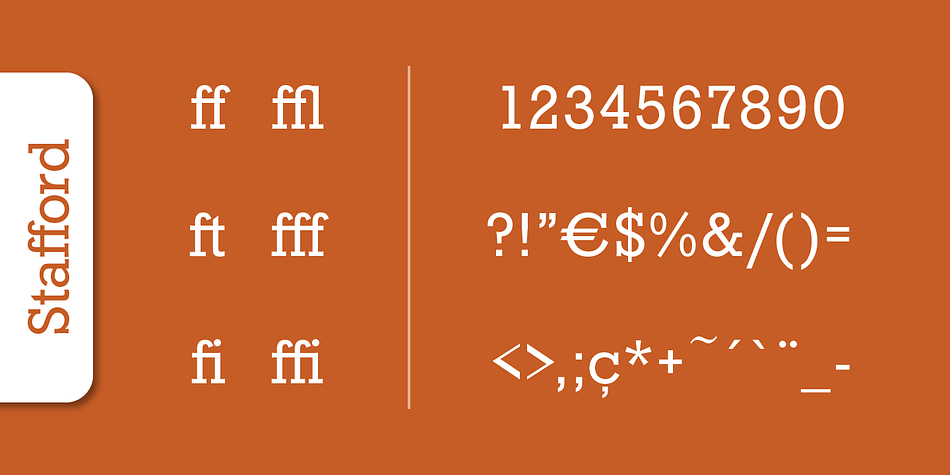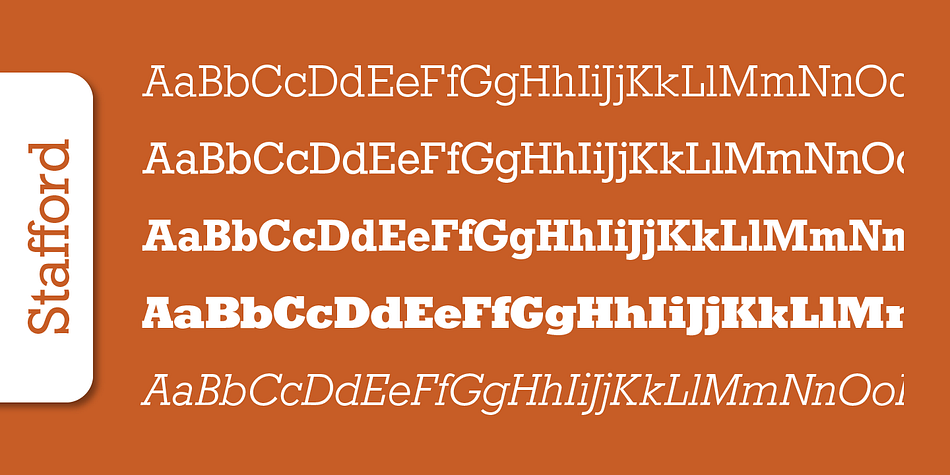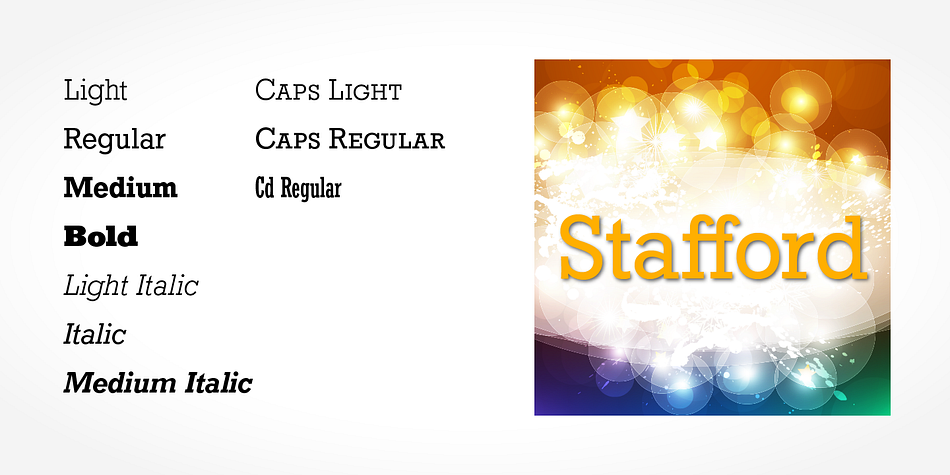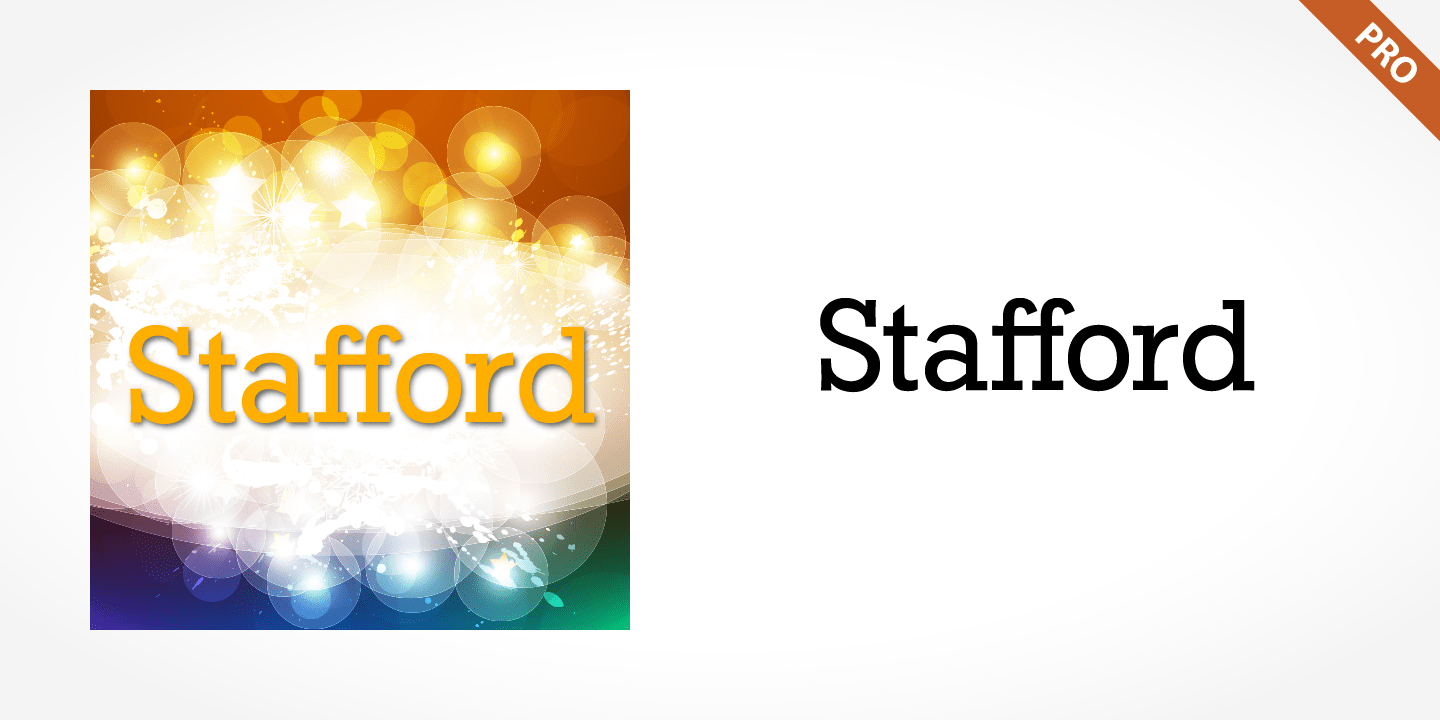
Stafford Pro
Stafford Pro is a slab serif font family. This typeface has ten styles and was published by SoftMaker.
Stafford Pro is a slab serif font published by SoftMaker. Stafford Pro well’s strong and harmonious characters make this font particularly flexible.